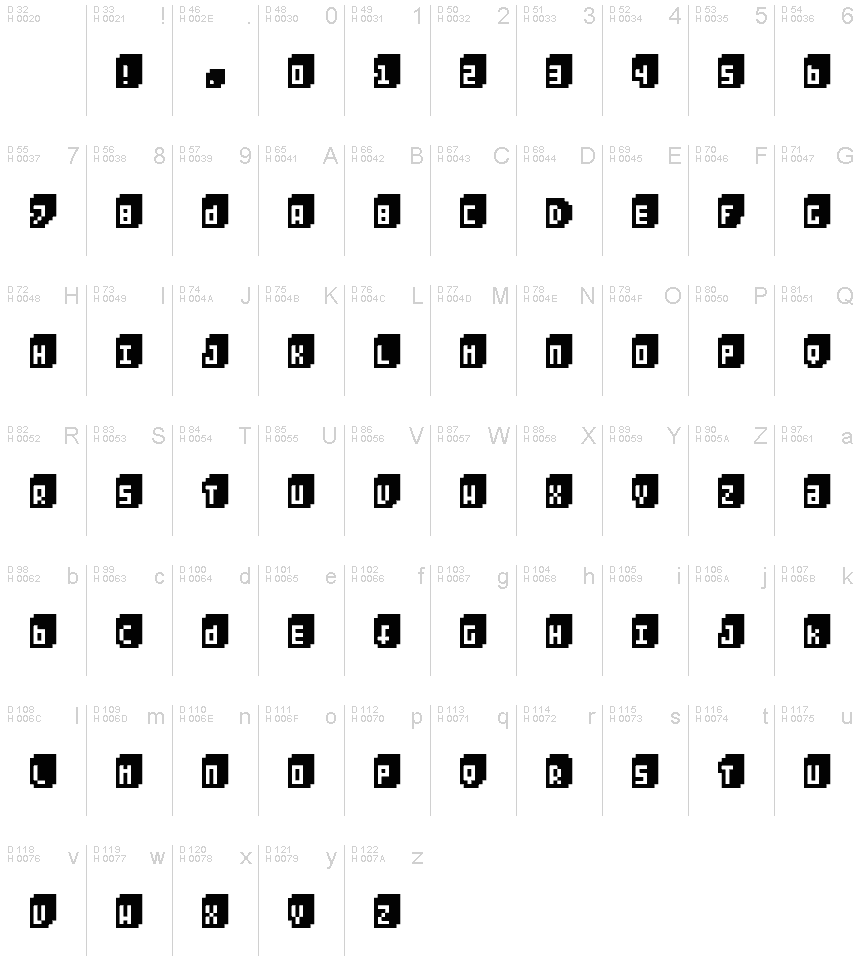
Pixeliza20
Pixeliza 20 is a bold, retro-inspired bitmap font that pays homage to the golden age of pixelated graphics. Designed by Freya J., this condensed typeface boasts a distinct pixelated aesthetic, lending a nostalgic and playful vibe to any project.
The sharp, angular letterforms and compact proportions make Pixeliza 20 an ideal choice for eye-catching headlines, game interfaces, or vintage-inspired designs. Its unique style and legibility ensure a strong visual impact, whether used for branding, packaging, or digital applications.
Pixeliza 20 is a versatile font that can elevate the aesthetic of a wide range of creative endeavors.